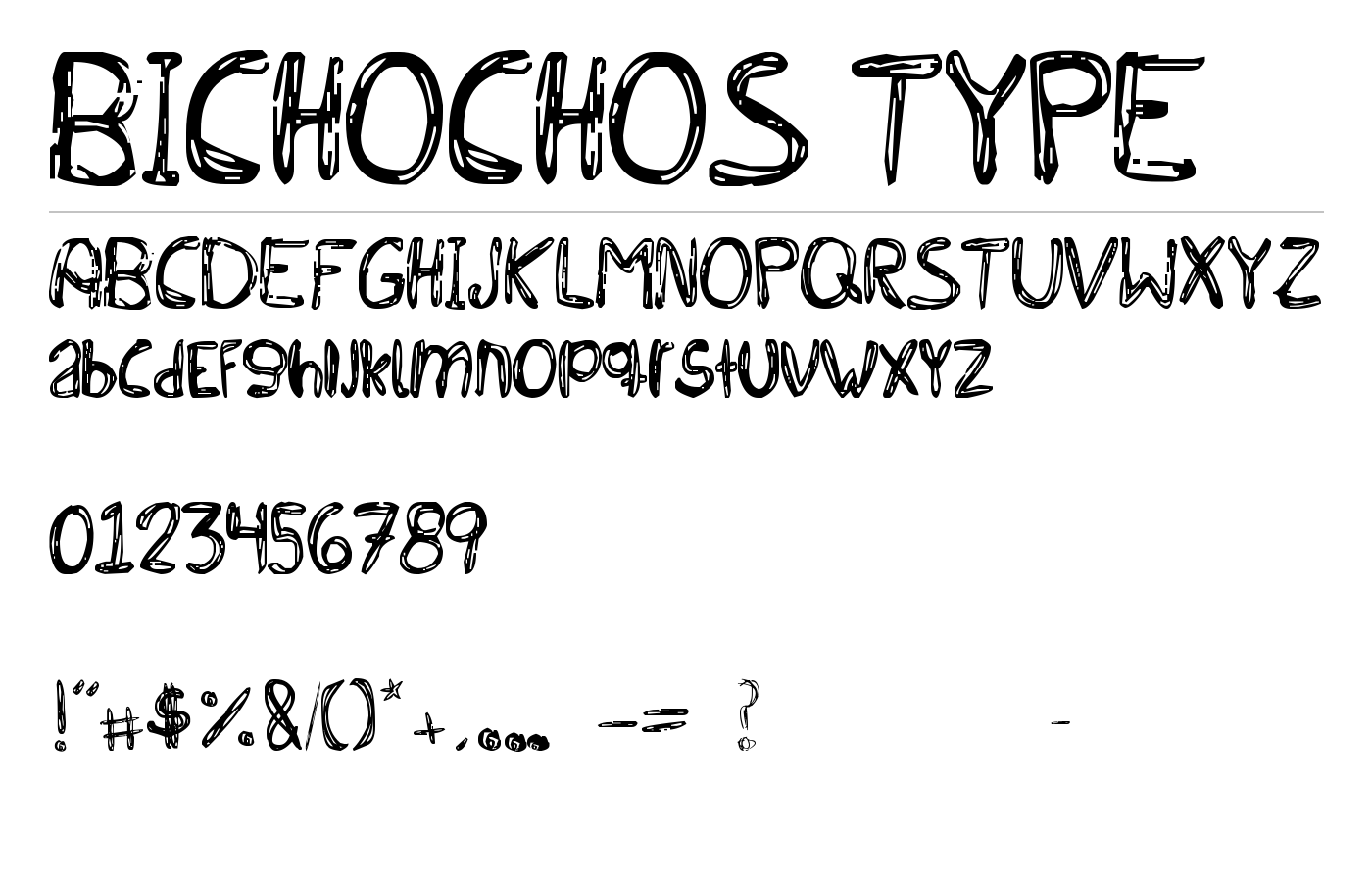
BICHOCHOS TYPE is a playful, hand-drawn sans serif font with a quirky and energetic feel. Its irregular, sketch-like strokes and uneven shapes give it a casual, fun personality that works well for creative and informal designs. This font is ideal for eye-catching headlines, posters, and projects that aim to convey creativity and approachability.